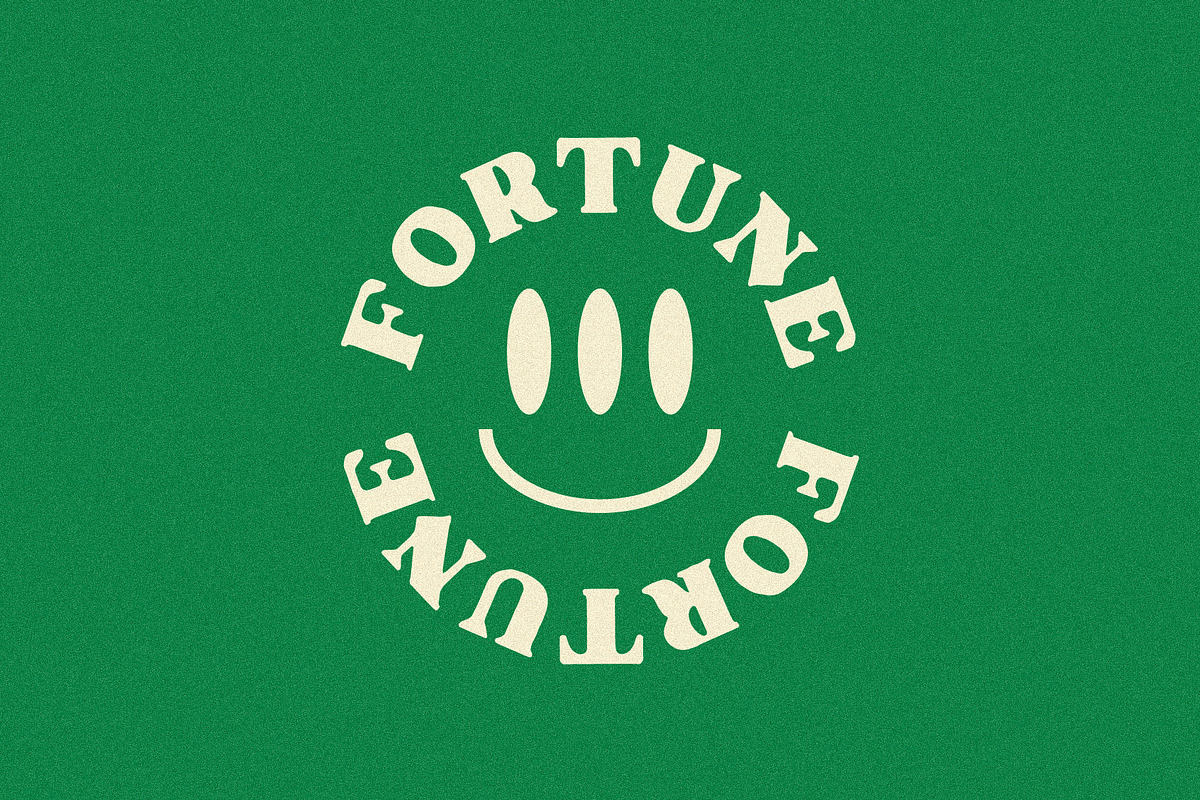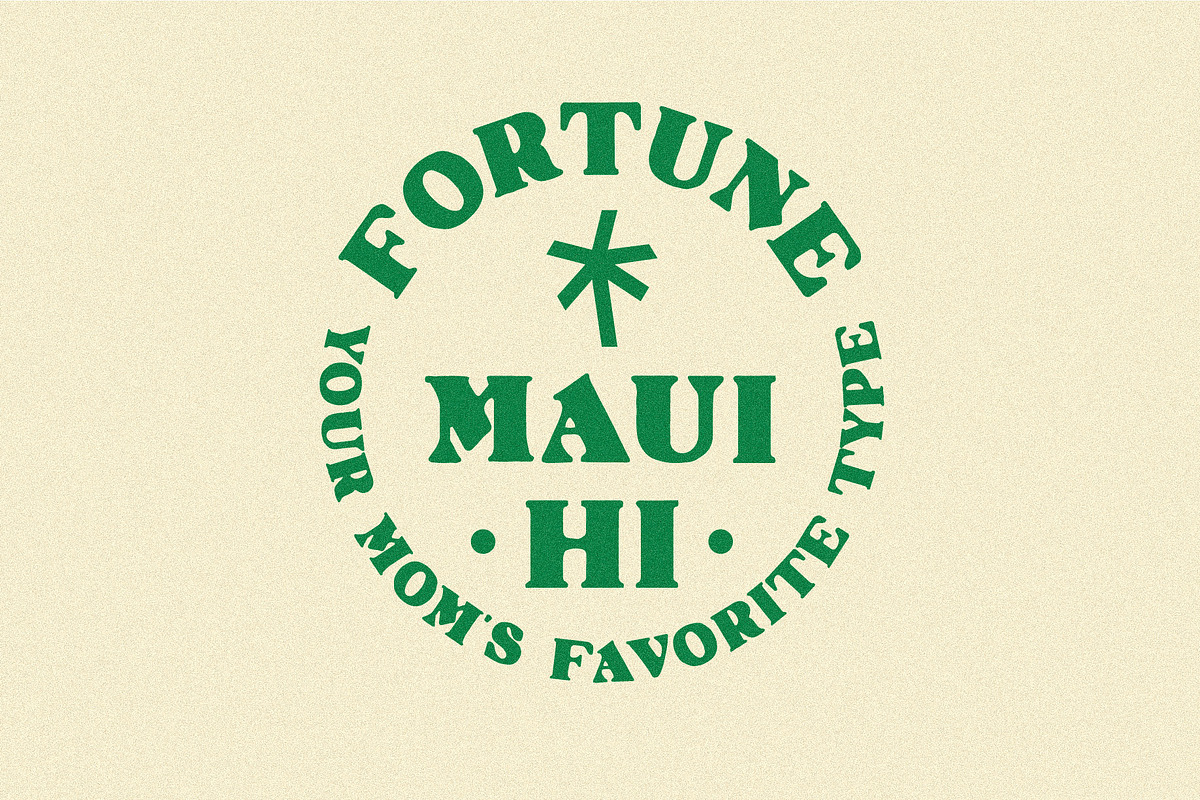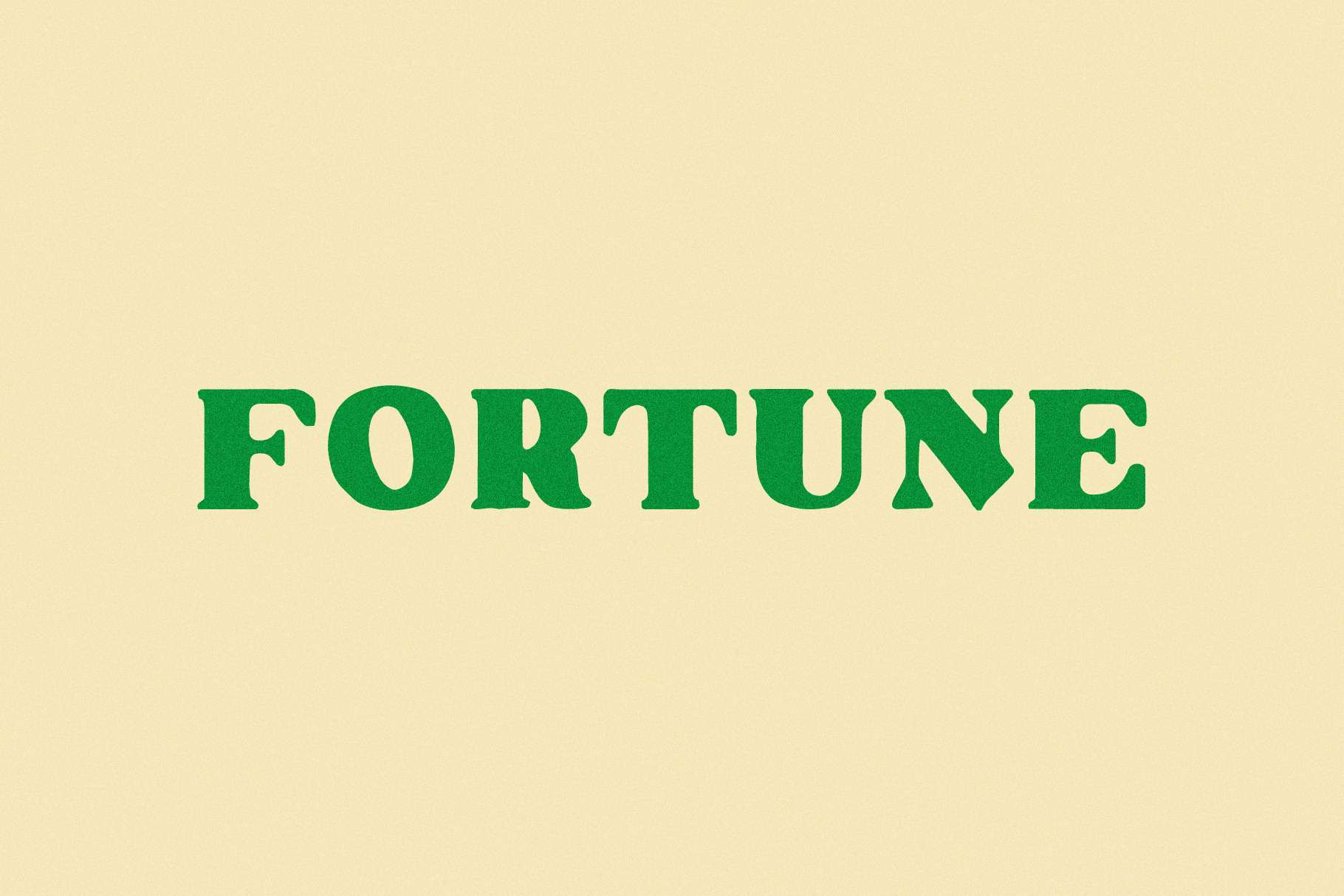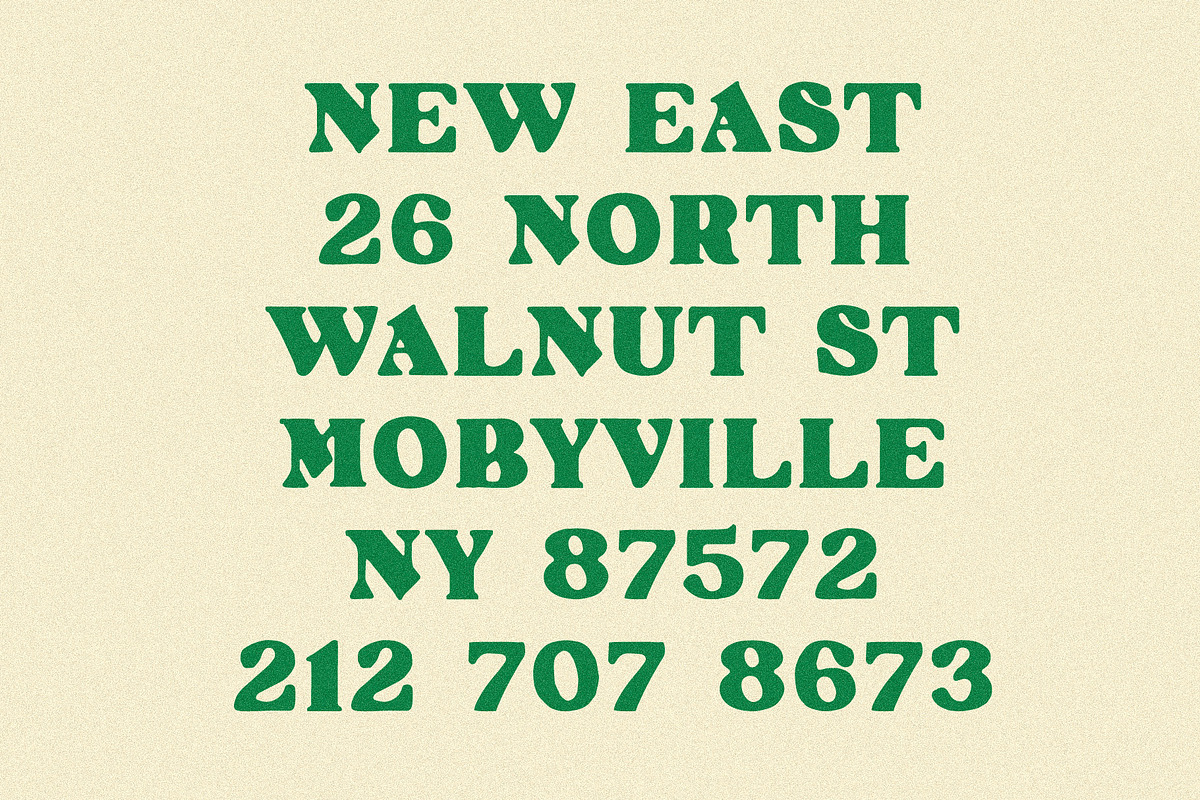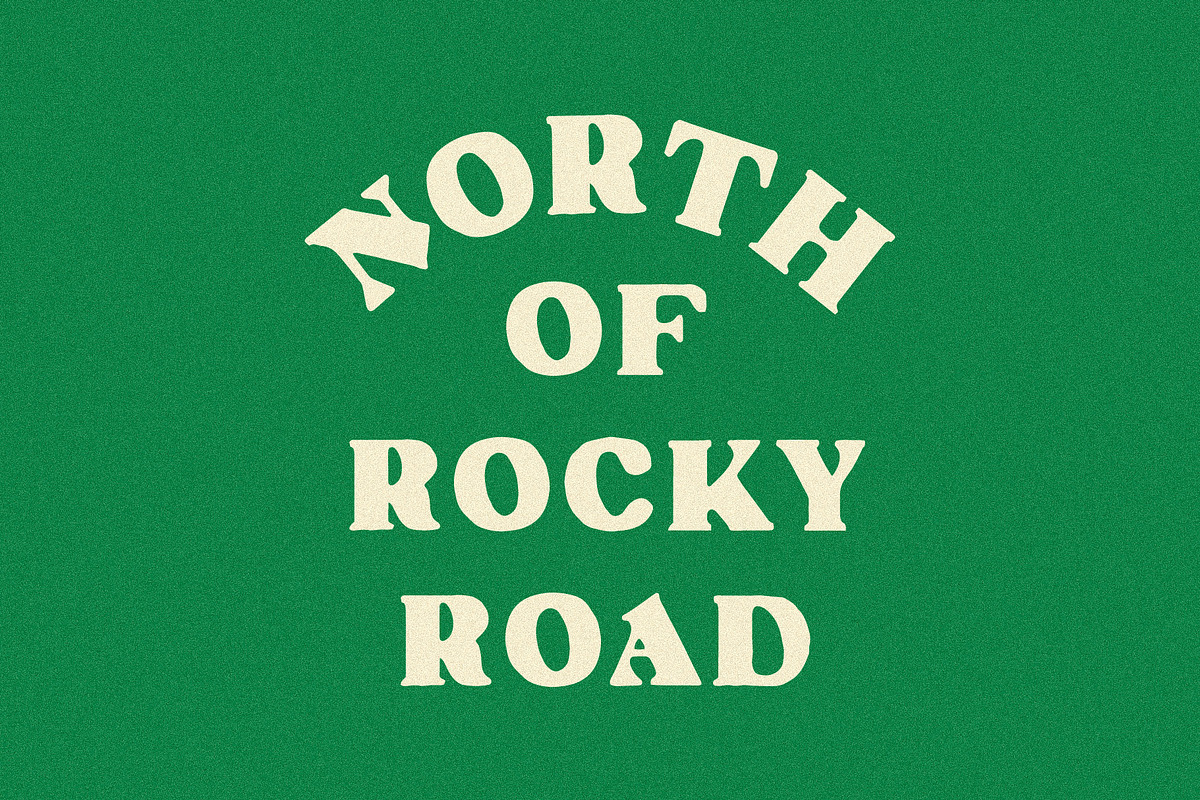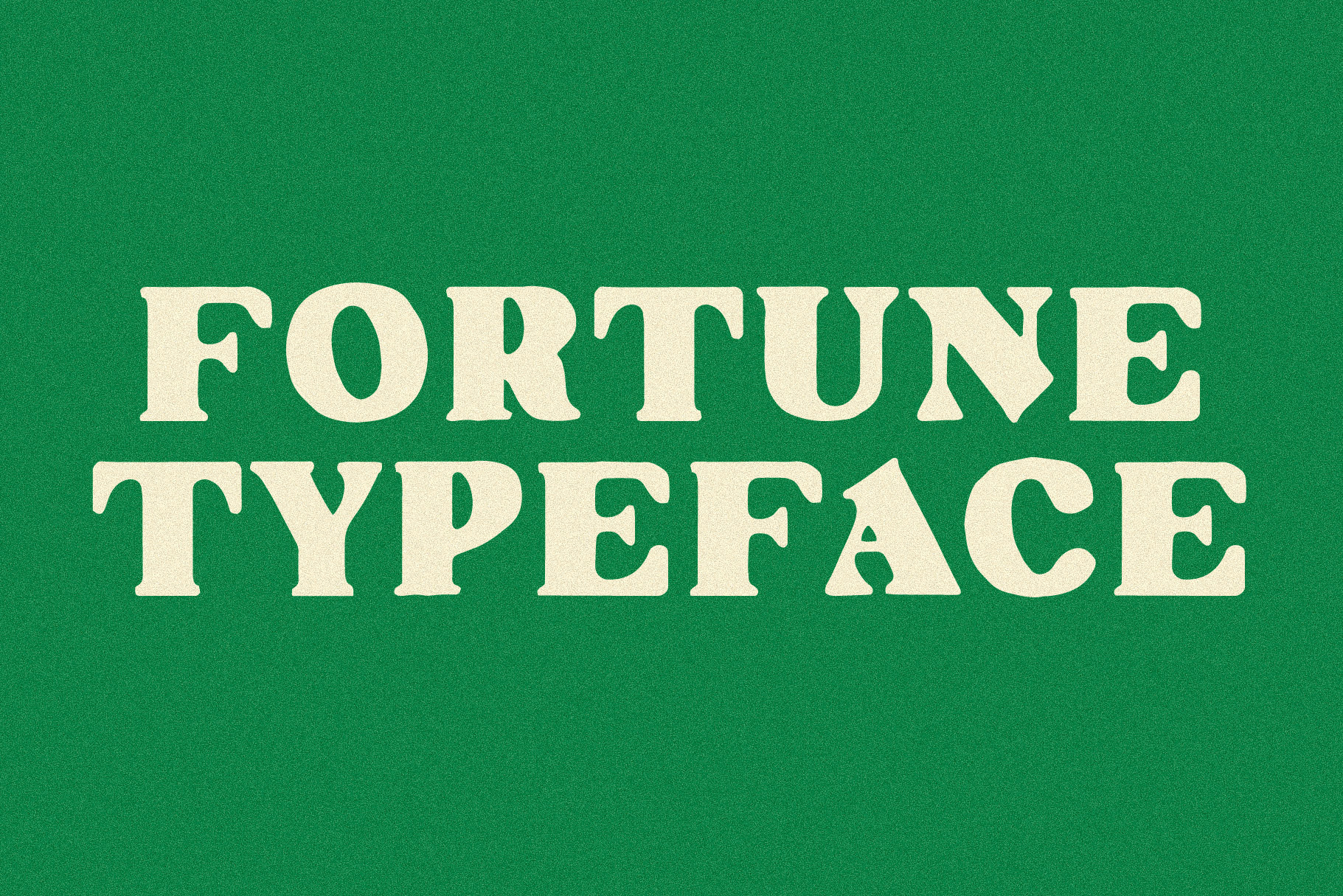
Fortune | A Lucky Display Font
Fortune is a chunky one with strong legs and an even stronger opinion.
It’s designed to stand out, slow things down, and bring a bit of weight to whatever you’re working on. Best used where you want your type to actually show up and say something.
Basic Latin support with a limited set of accented characters.